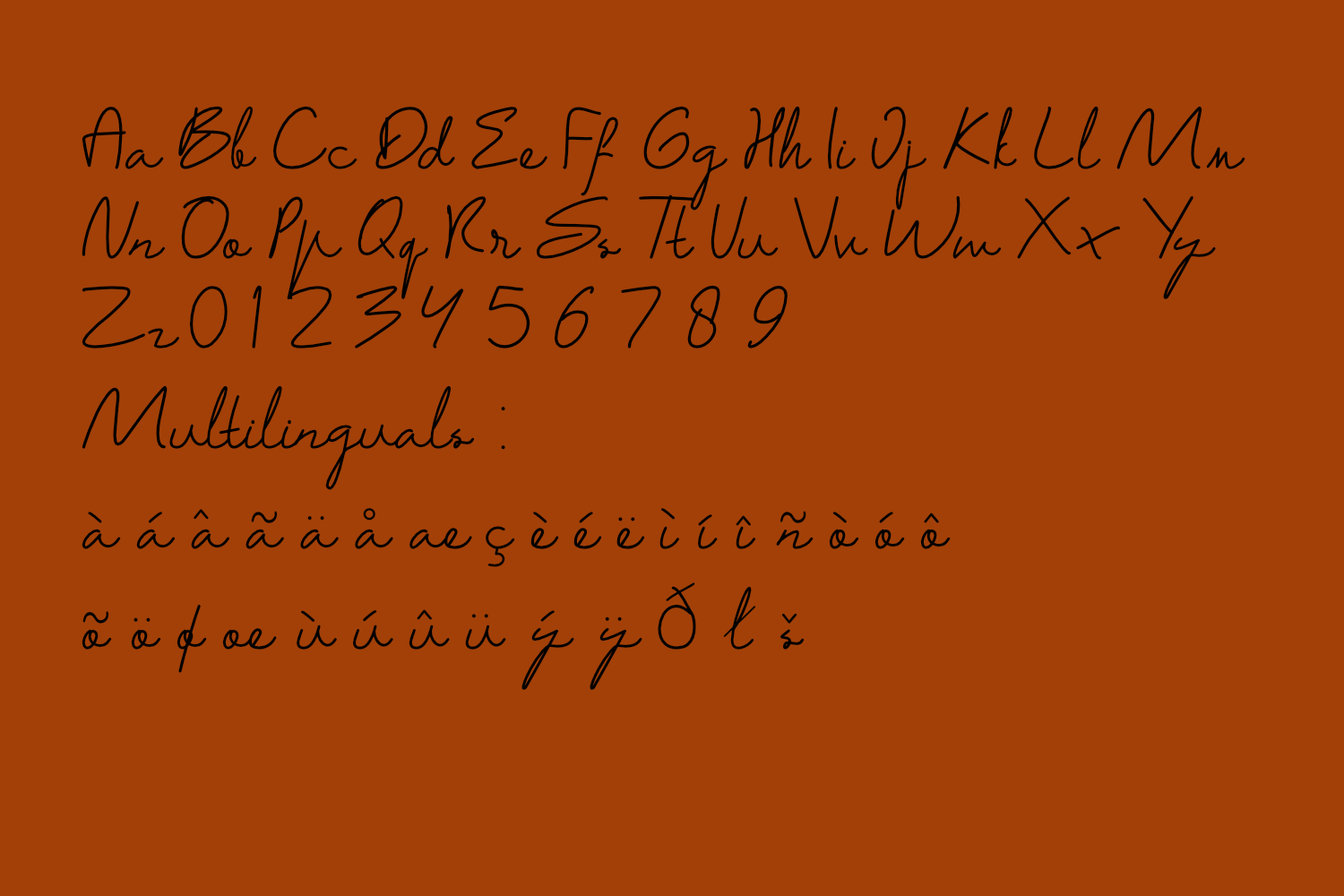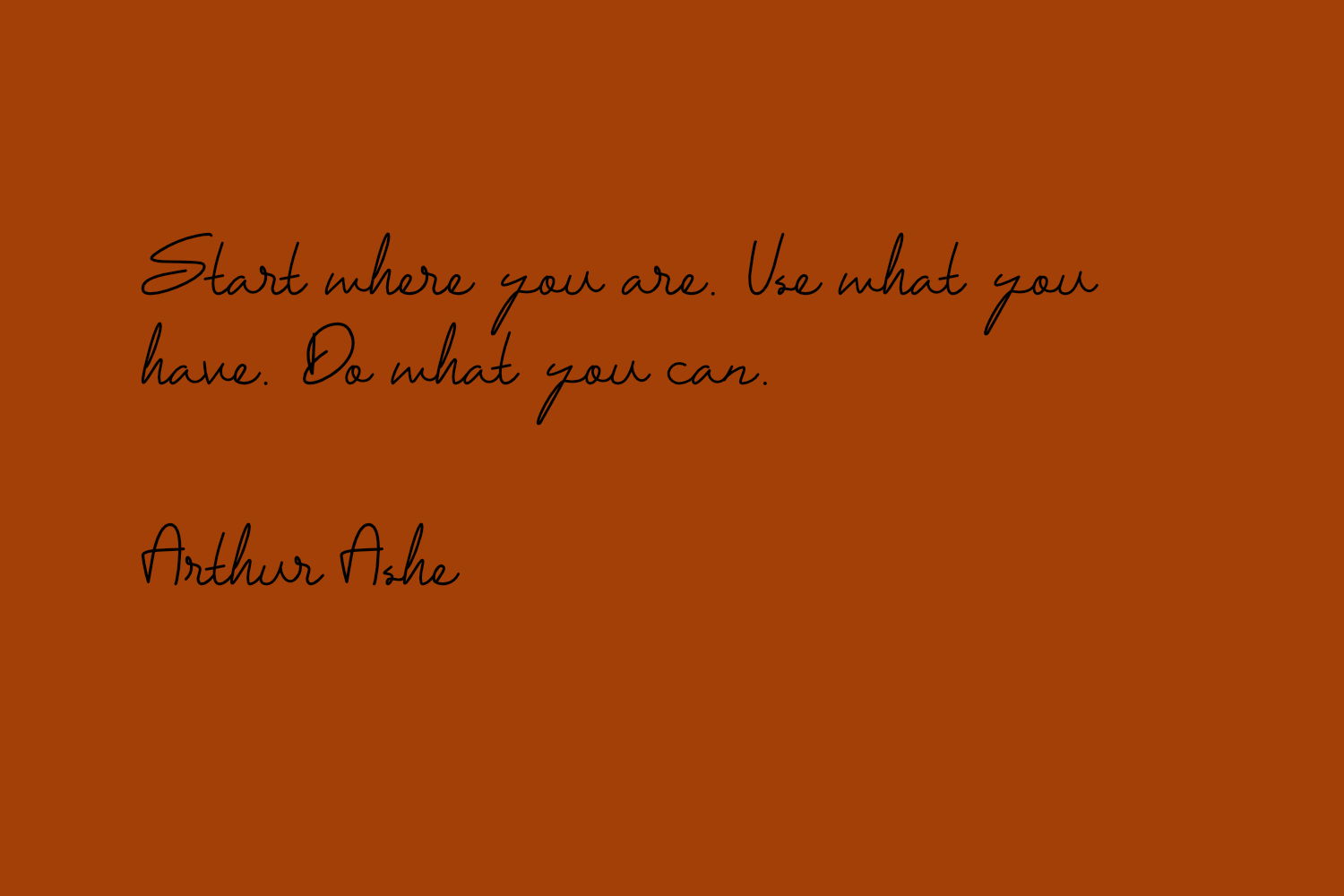
Samantha Typeface
Samantha Handwritten Font
This is a relaxed, thin lettered and adaptable. It looks stunning on wedding invitations, thank you cards, quotes, greeting cards, logos, business cards and every other design which needs a customized touch.